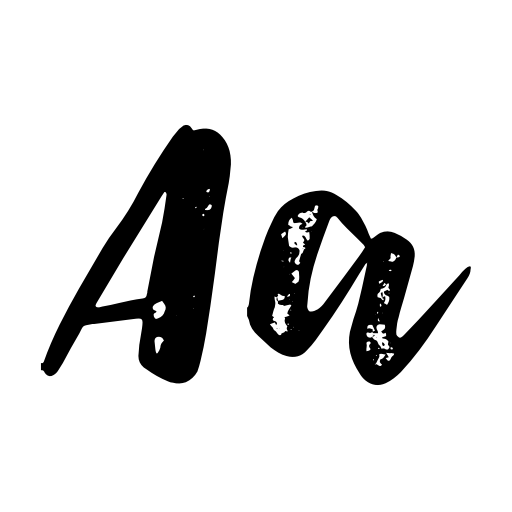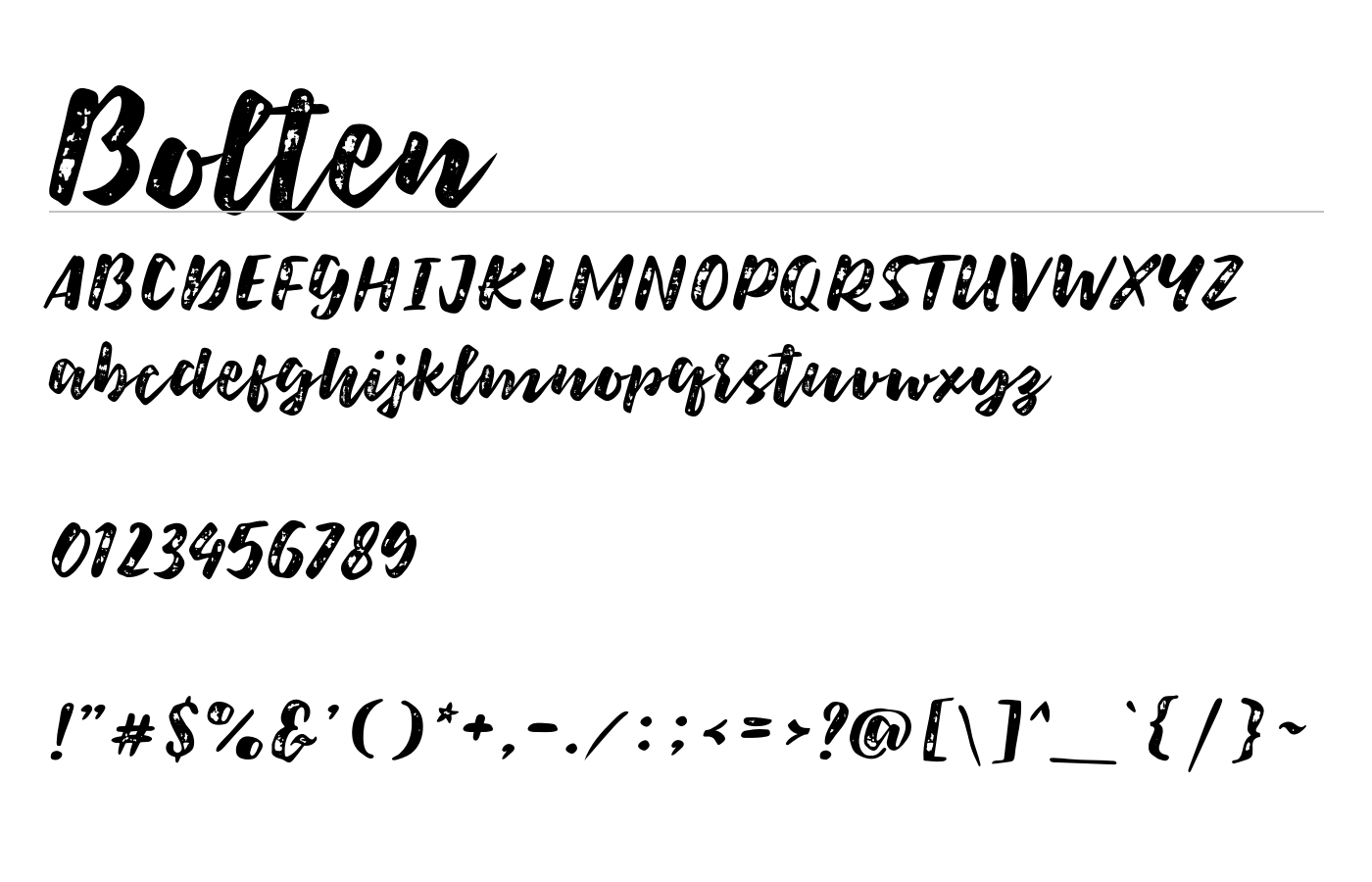
Bolten is a bold, brush script font with a textured, distressed style that gives it a casual and artistic feel. Its lively letterforms and slightly irregular shapes make it perfect for projects that want to convey creativity, energy, and a handcrafted touch. This font works well for logos, posters, and branding where a dynamic, informal, and eye-catching look is desired.
Bolten Font
About Bolten Font